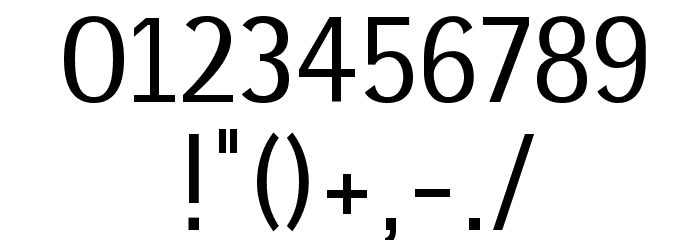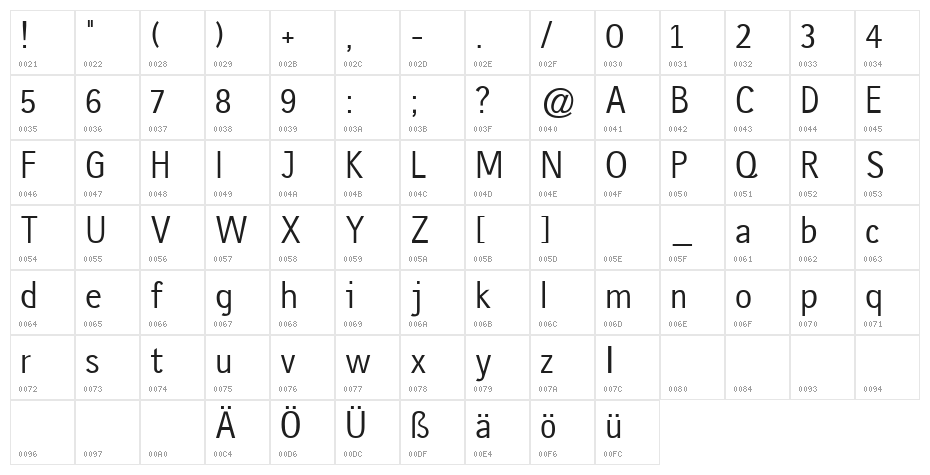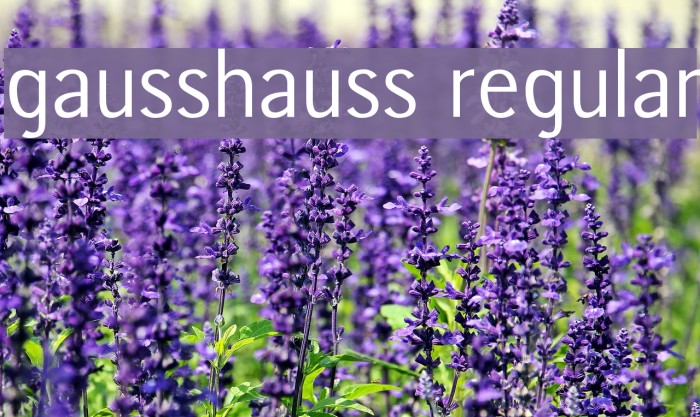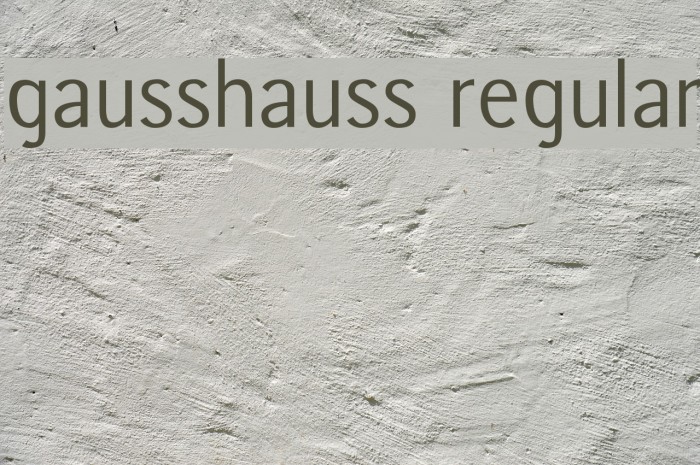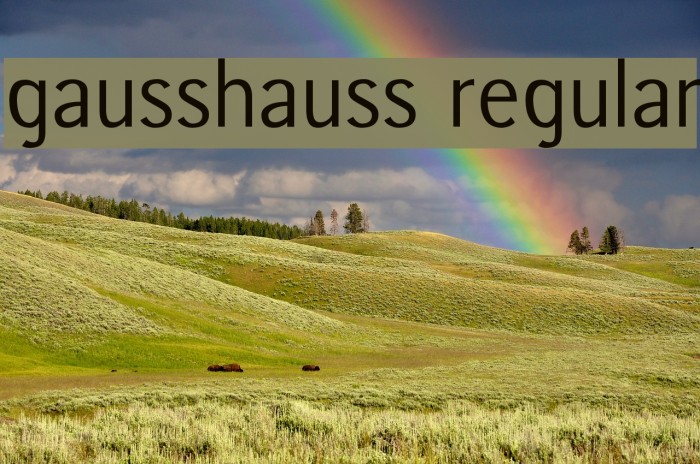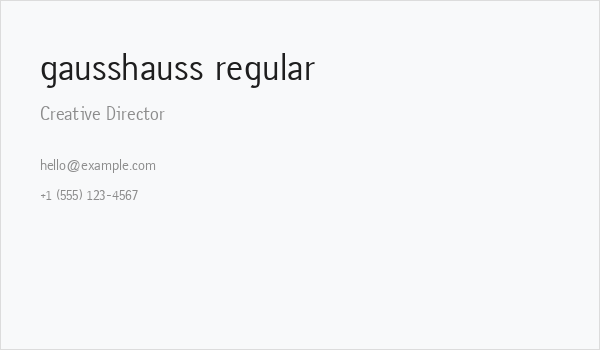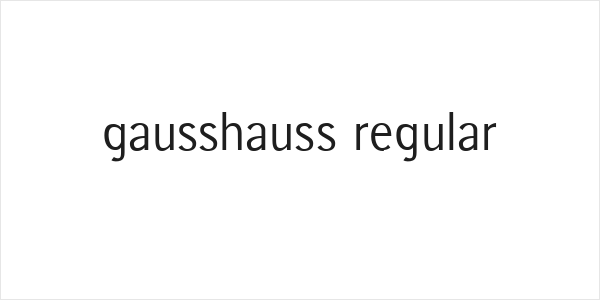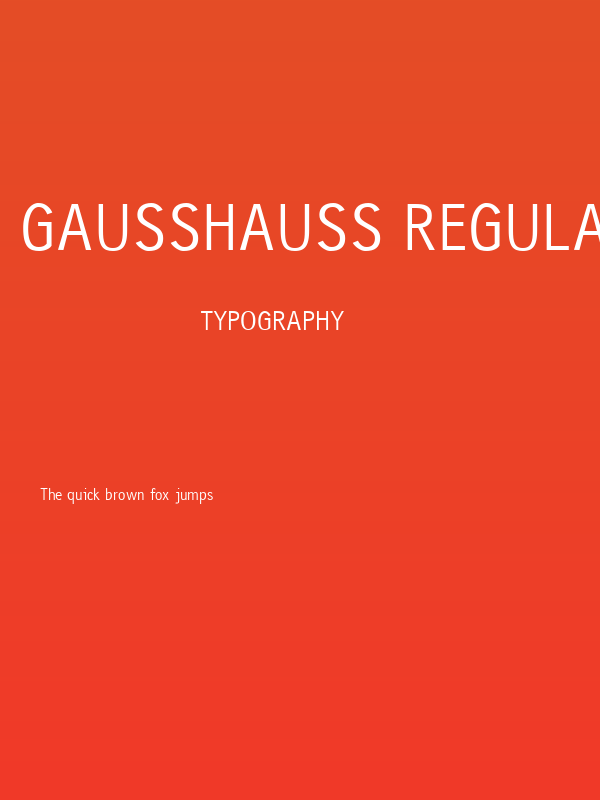
gausshauss regular Font
gausshauss regular Description
This typeface features a clean and modern sans-serif design, characterized by its geometric shapes and uniform stroke widths. The letters are well-proportioned, offering a harmonious balance between height and width, which enhances readability. The uppercase and lowercase letters maintain a consistent style, with smooth curves and straight lines that give it a sleek appearance. The numerals are clear and distinct, making them easily distinguishable. Special characters are included, providing versatility for various uses. Overall, this font exudes a contemporary and professional feel, suitable for a wide range of design applications.